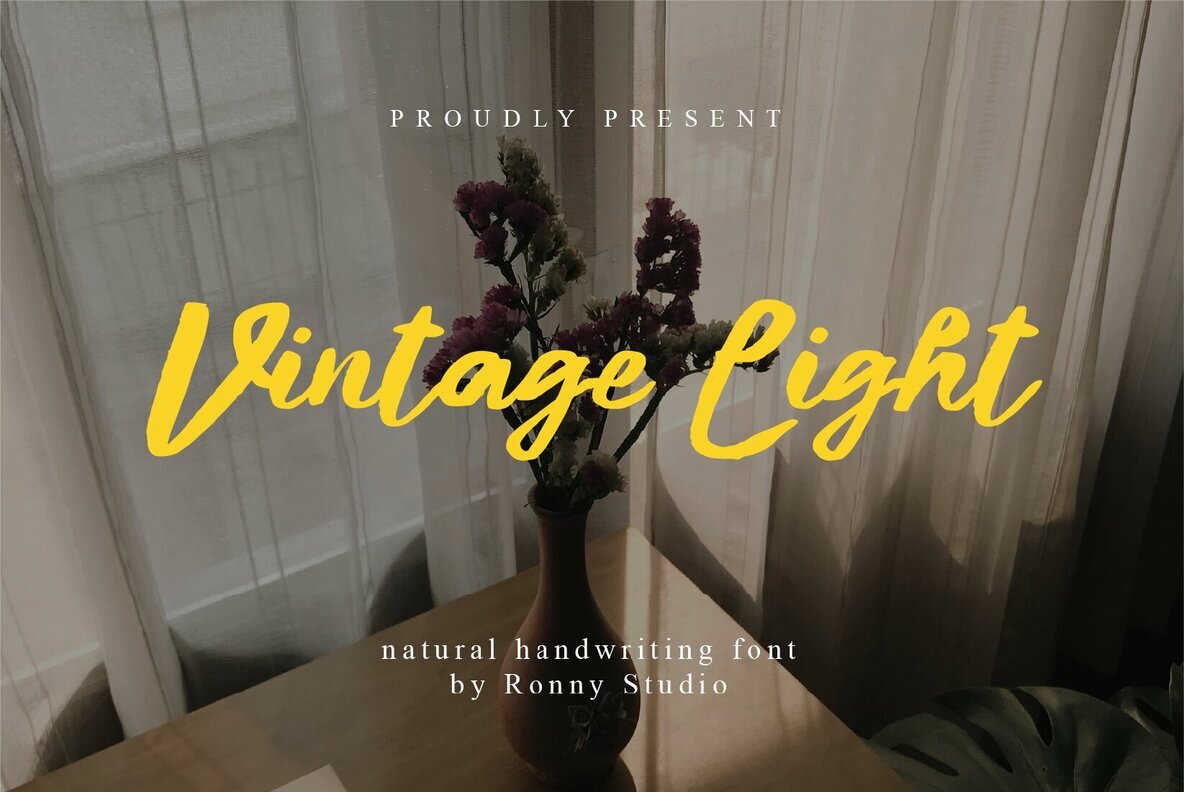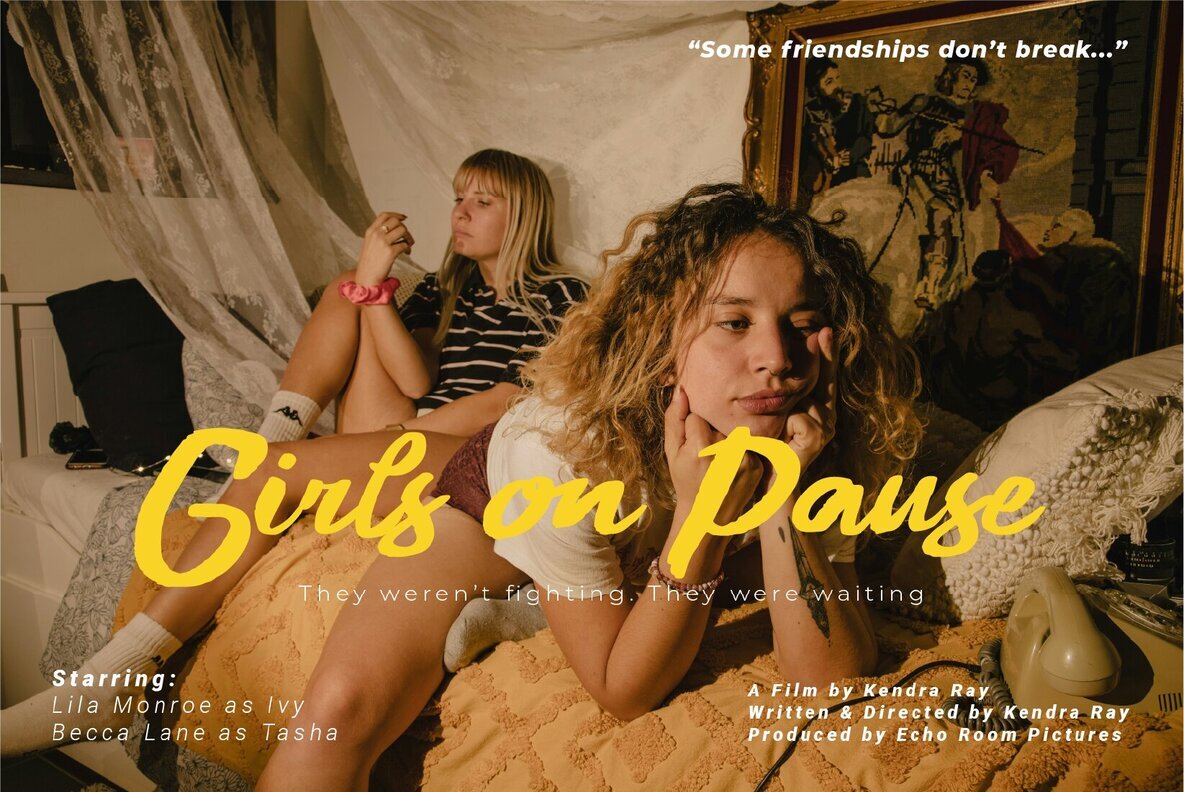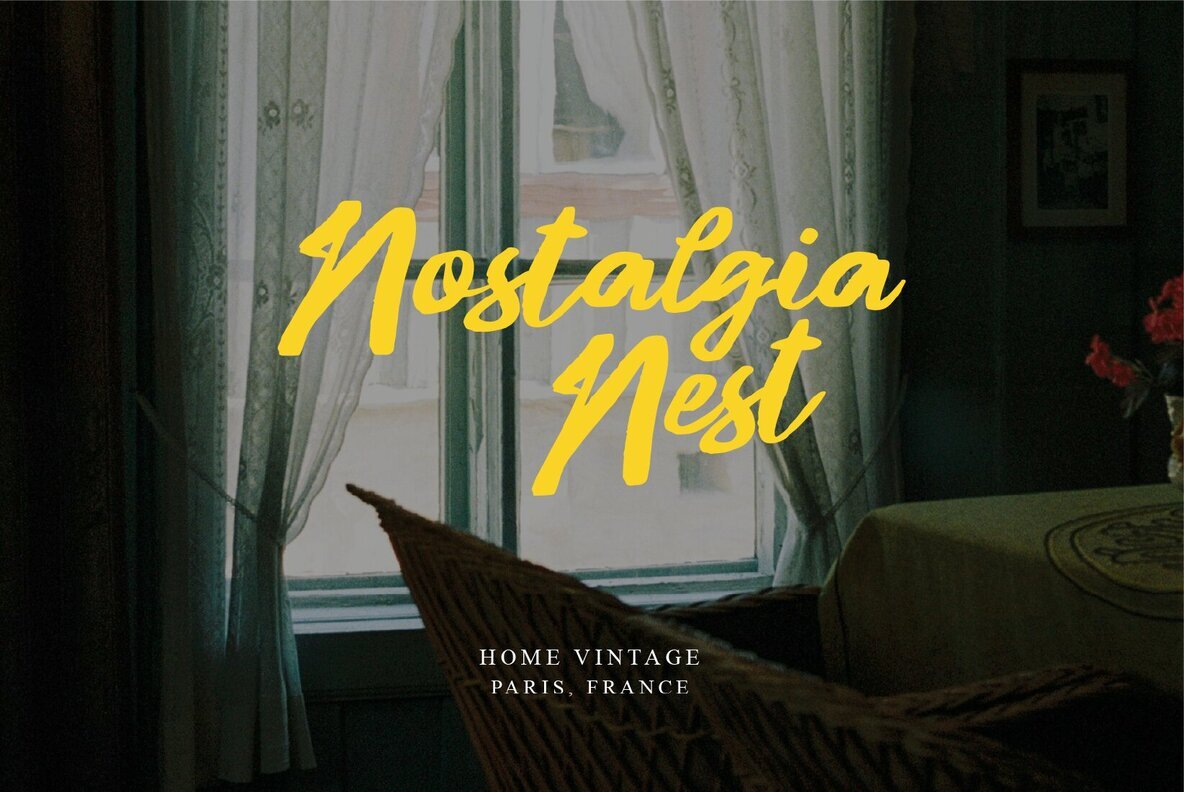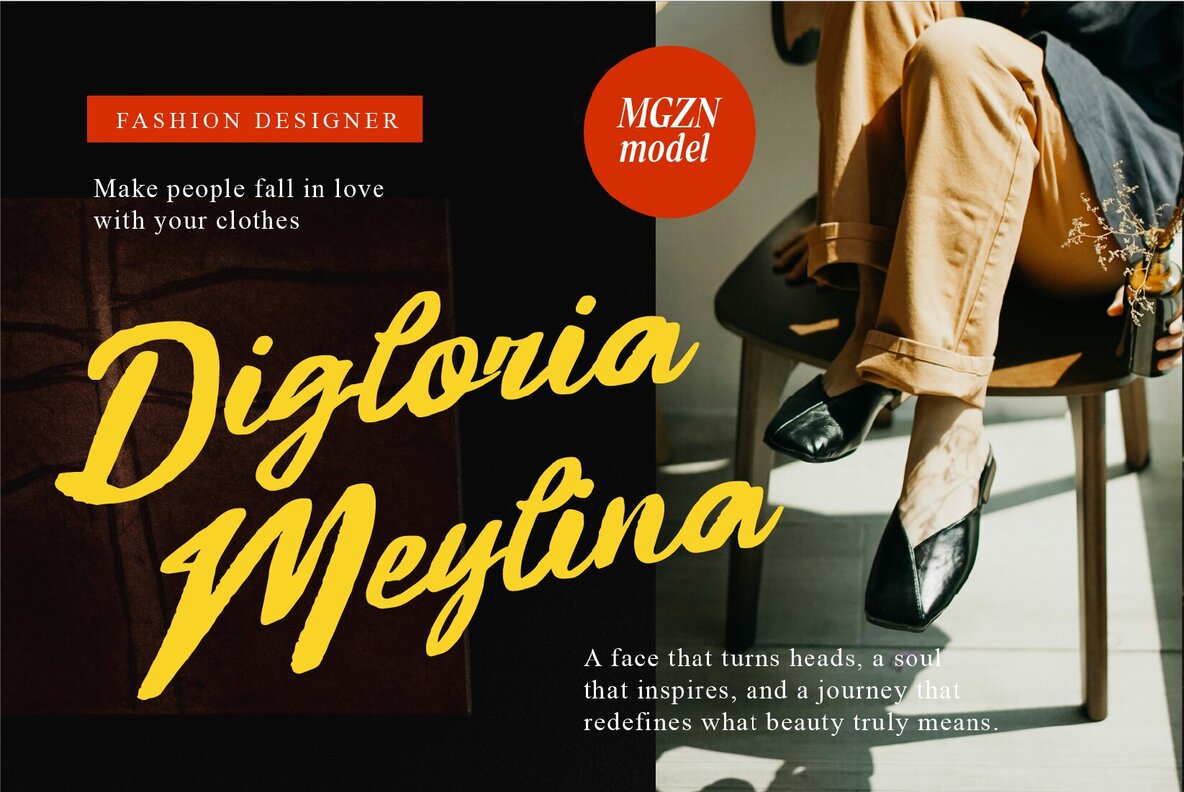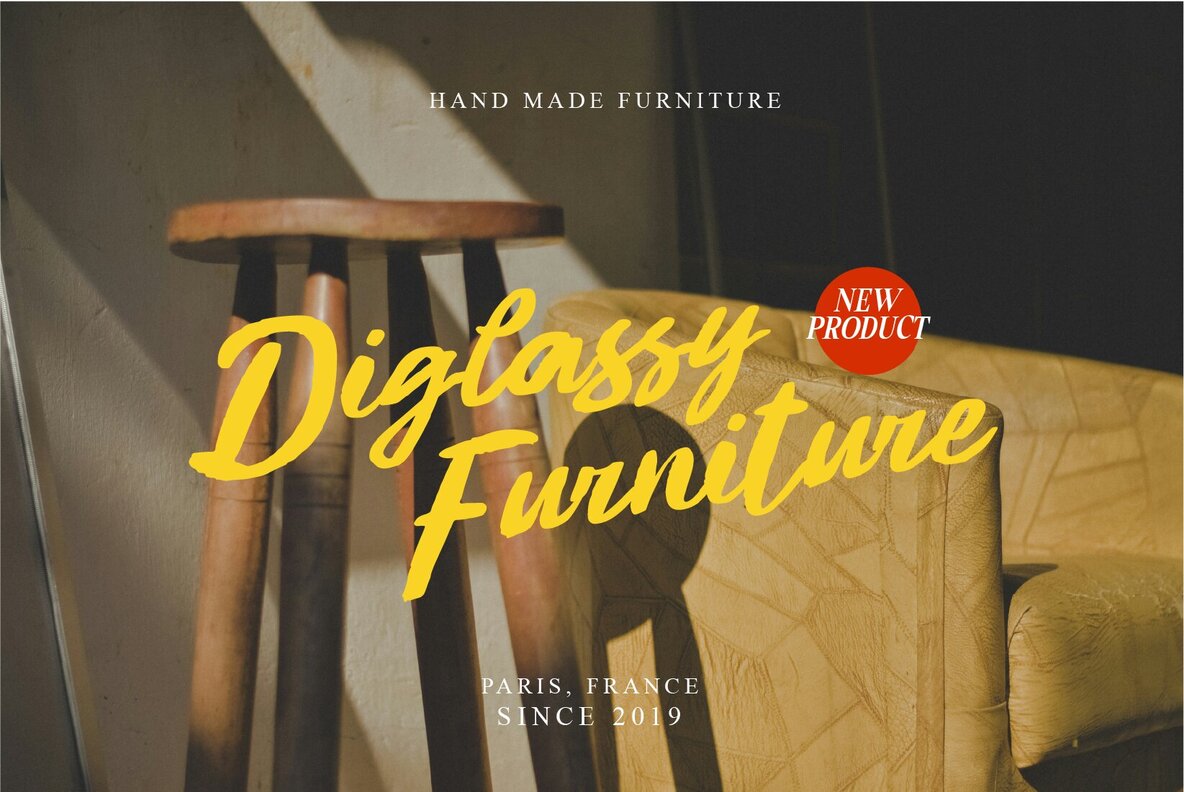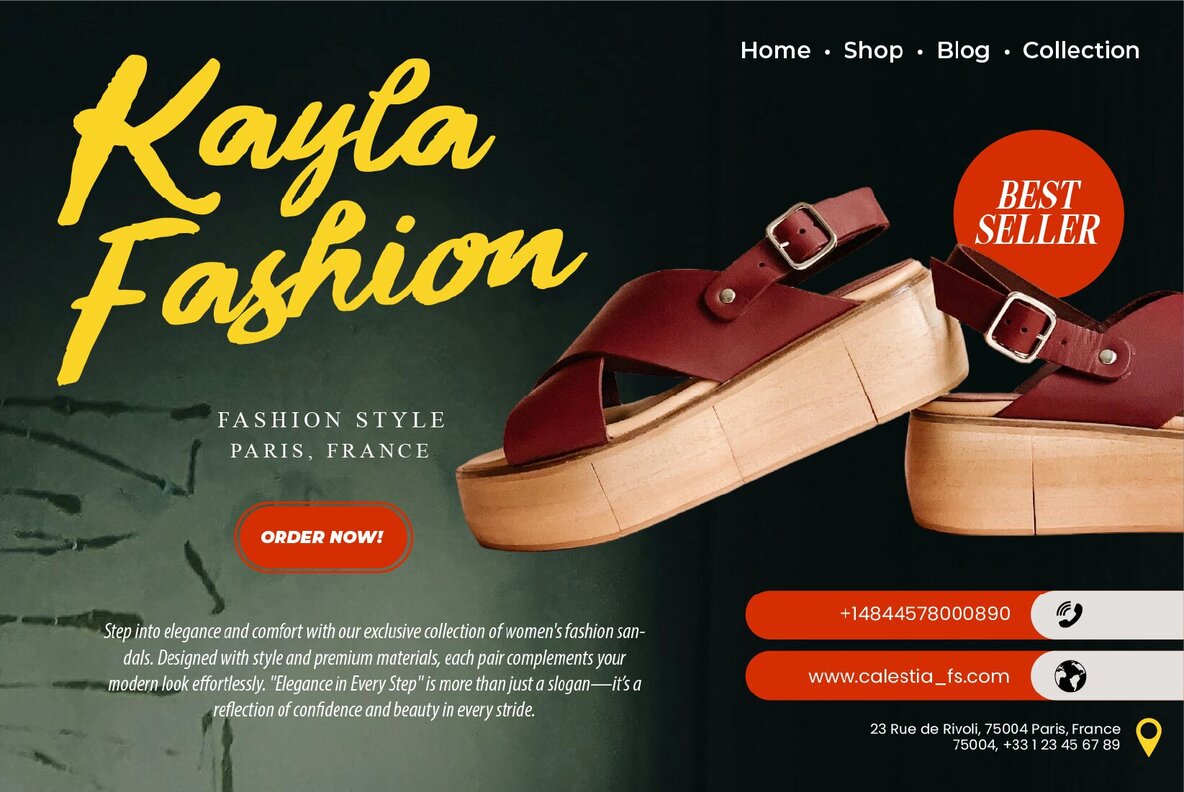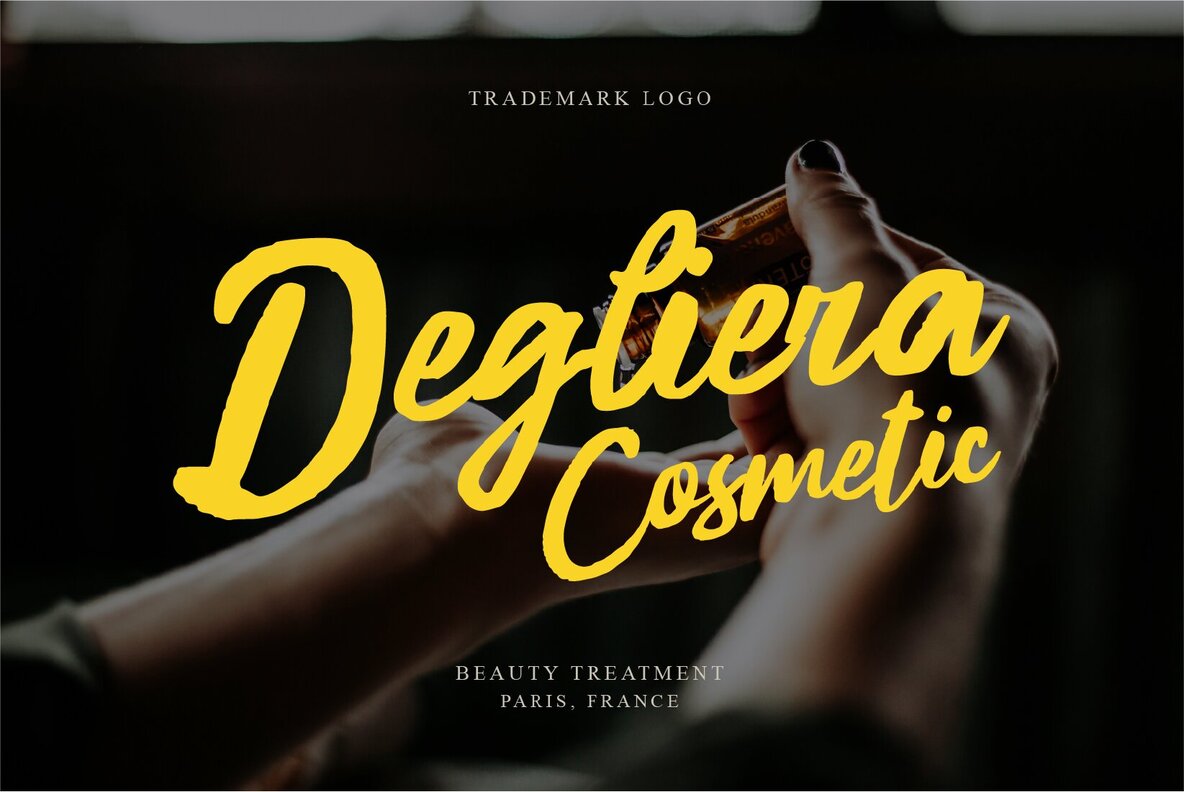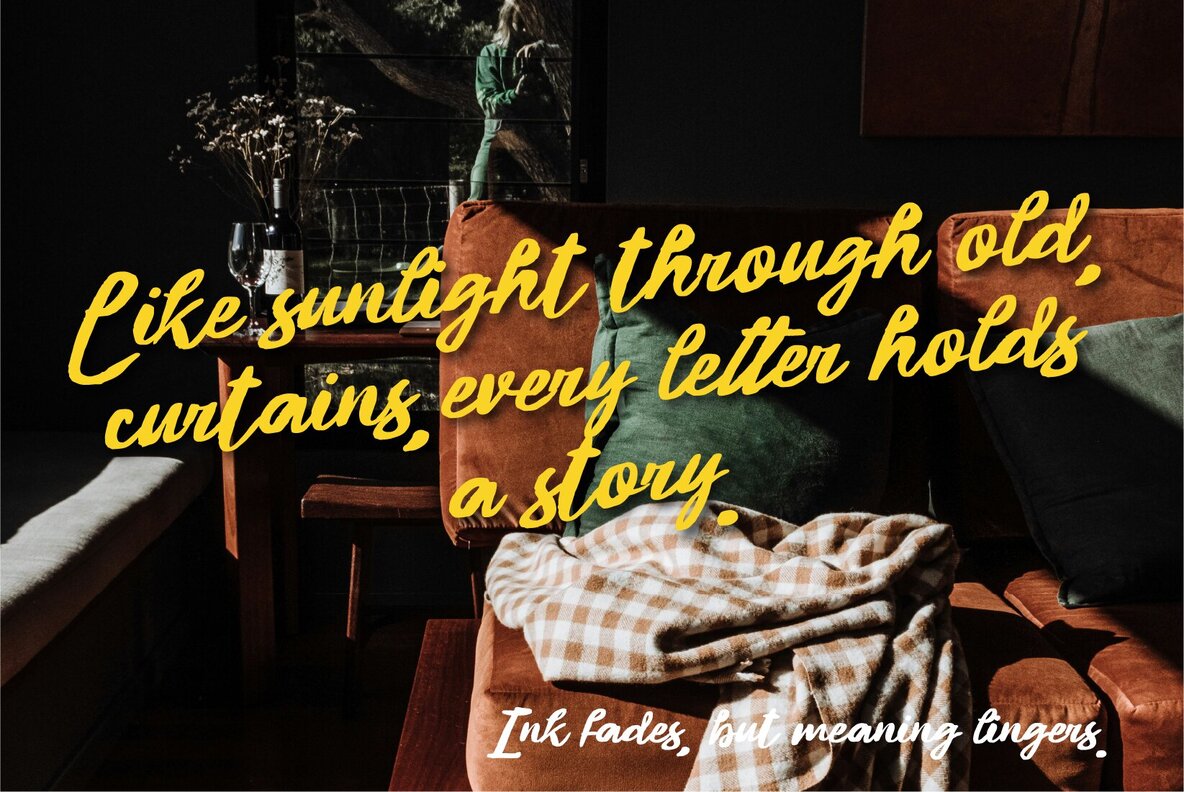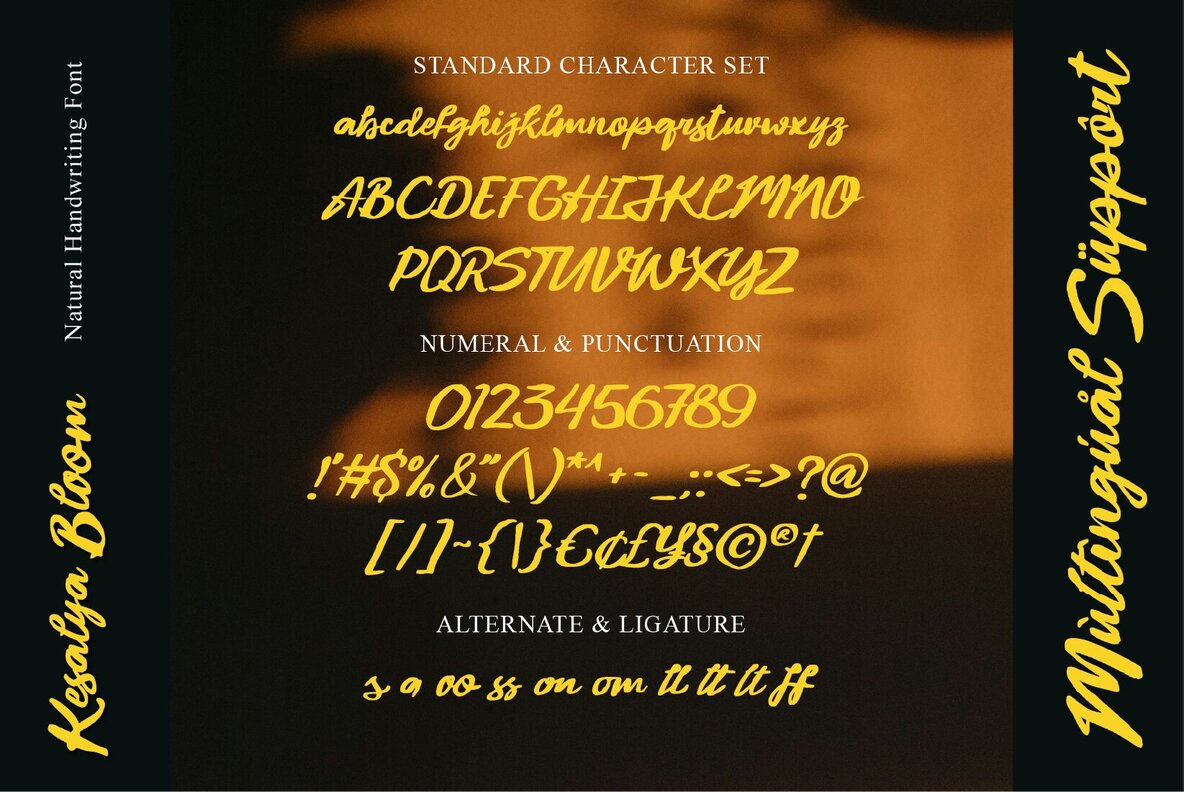
Vintage Light Font
Vintage Light
Experience the warmth and authenticity of Vintage Light, a natural handwriting font that seamlessly blends charm with modern usability. Its bold yet soft strokes create a nostalgic yet contemporary feel, making it ideal for projects requiring a handcrafted touch. Perfectly suited for branding, invitations, and digital media, Vintage Light brings effortless elegance. Add charm, emotion, and character to your designs with Vintage Light—a script font balancing vintage soul and modern style.Vintage Light: Charming Handwriting Font